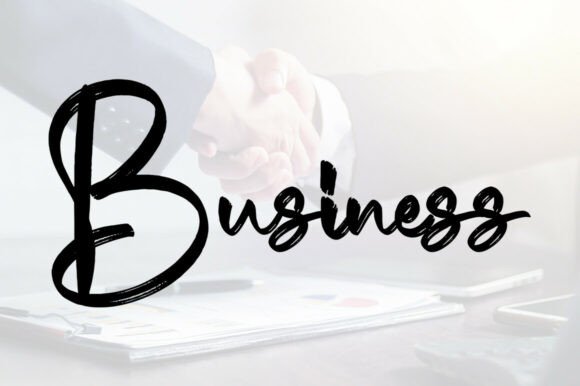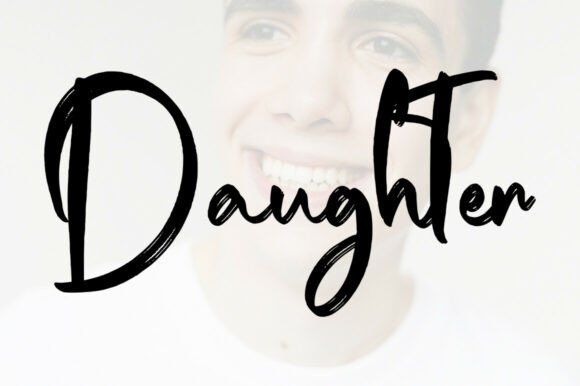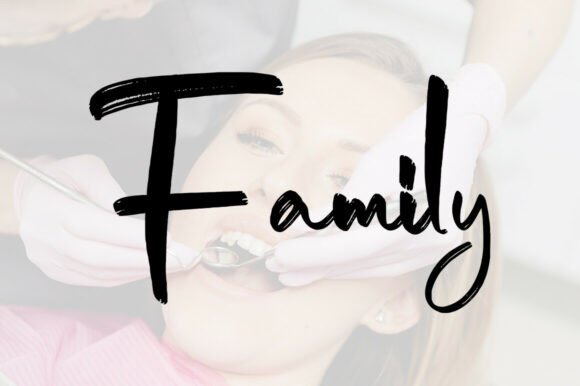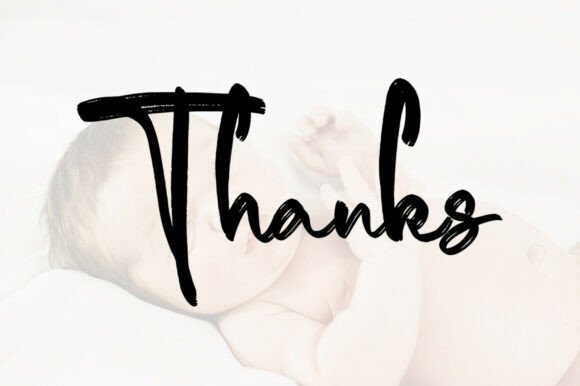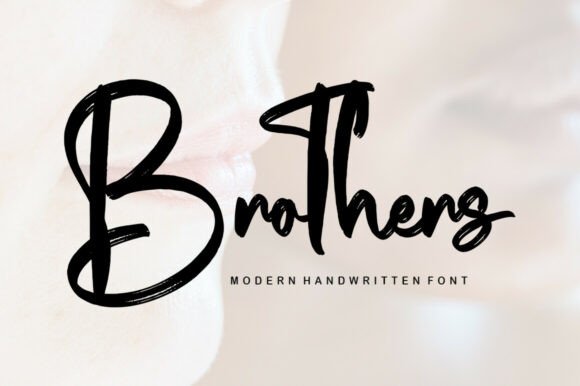
Discover the Warmth of Brothers Font: Your New Go-To Handwritten Companion
In the vast world of typography, finding the perfect font that resonates with your project’s tone and personality can be a daunting task. Whether you’re a designer, crafter, or simply someone who loves to dabble in digital creations, the right font can elevate your work from ordinary to extraordinary. This is where Brothers Font comes into play—a simple, friendly, and versatile handwritten font designed to become your favorite companion for a myriad of projects.
The Charm of Brothers Font
Brothers Font is more than just a typeface; it’s an invitation to bring a touch of warmth and personality into your designs. Its simplicity is its strength, offering a clean and approachable look that works wonders for a wide range of applications. From crafting beautiful greeting cards to designing engaging digital content, presentations, and even intricate craft projects, Brothers Font is engineered to adapt and shine.
The versatility of Brothers Font is one of its most compelling attributes. Here are just a few ways you can make the most of this fantastic font:
- Crafts: Add a personal touch to your handmade crafts. Whether it’s scrapbooking, making DIY decorations, or creating custom jewelry, Brothers Font can help you add meaningful and stylish text.
- Digital Design: Enhance your digital projects with a friendly and approachable tone. From social media graphics to blog headers, Brothers Font can help you connect with your audience on a more personal level.
- Presentations: Make your presentations stand out with a font that communicates warmth and friendliness. It’s perfect for adding a personal touch to your slides, making them more engaging for your audience.
- Greeting Cards: Create beautiful, heartfelt greeting cards for any occasion. The personal feel of Brothers Font will make your cards truly special.
Why Brothers Font Could Be Your New Favorite
So, what makes Brothers Font stand out in the crowded world of digital typography? Here are a few reasons why it has the potential to become your go-to font:
- Easy to Read: Its simplicity ensures that your message is conveyed clearly and effectively, making it perfect for both digital and print projects.
- Highly Versatile: Whether you’re working on a professional project or a personal craft, Brothers Font adapts seamlessly to different contexts.
- Warm and Inviting: The font’s friendly appearance adds a warm, inviting feel to your designs, helping you connect with your audience.
Brothers Font is more than just a typeface; it’s a creative companion designed to bring warmth, personality, and versatility to your projects. Whether you’re a professional designer, a crafter, or simply someone looking to add a personal touch to your digital creations, Brothers Font has the potential to become your new favorite go-to font. Its simplicity, combined with the extensive creative possibilities offered by its PUA encoding, makes it an excellent addition to your typographic arsenal. So, why wait? Explore the possibilities with Brothers Font today and discover how it can elevate your designs to new heights.